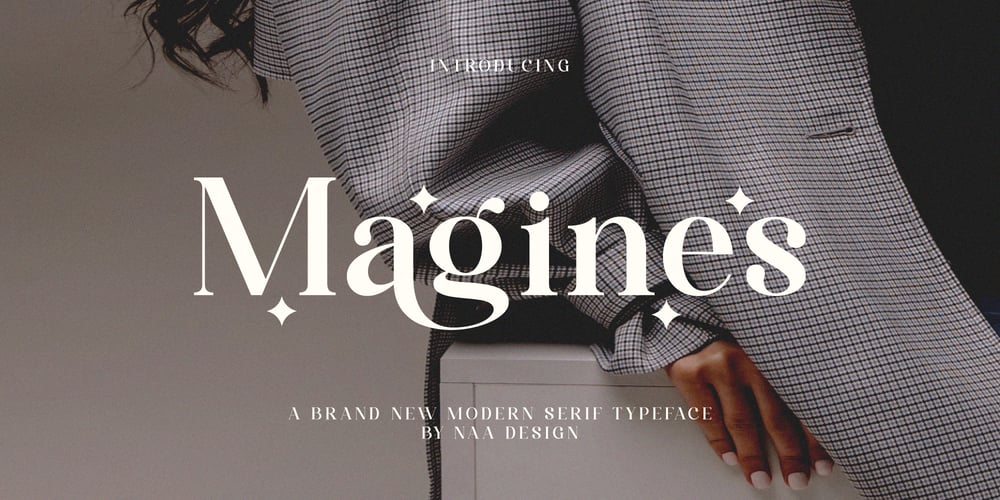
Magines
Magines font
Magines Font Family was designed by Kurnia Elis Setyorini and published by Naatypo. Magines contains 1 styles and family package options. A brand new modern serif typeface. We are digital industry leaders. In this section state your company details including name, industry, product lines, ect. Here is a little about our brand mission, vision, values, and messaging. We are really excited to hear about your new project and can’t wait to get started.